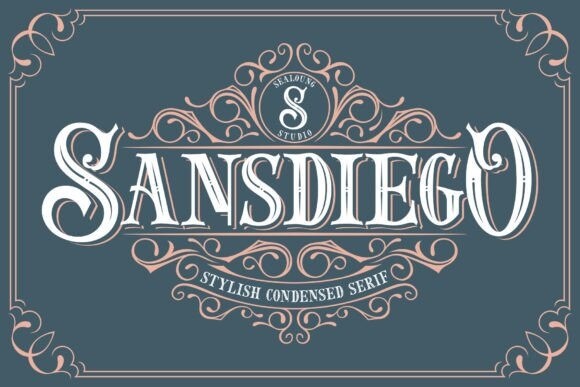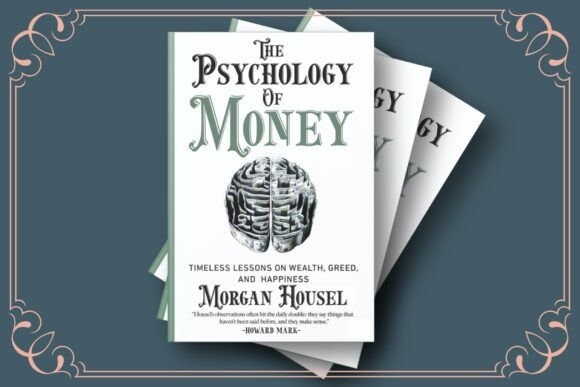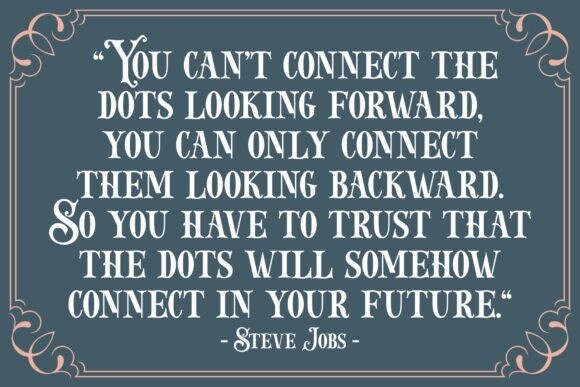
Sansdiego Font
Sansdiego, this typeface inspired by European empire-era forms of writing. Sansdiego typeface is perfect for classic Victorian themed designs, beer packaging, whiskey, barbershop, pomade, tattoo studio logos and so on. This font comes with additional effects: Normal – style – double – Shadow, packaged as a layered font.